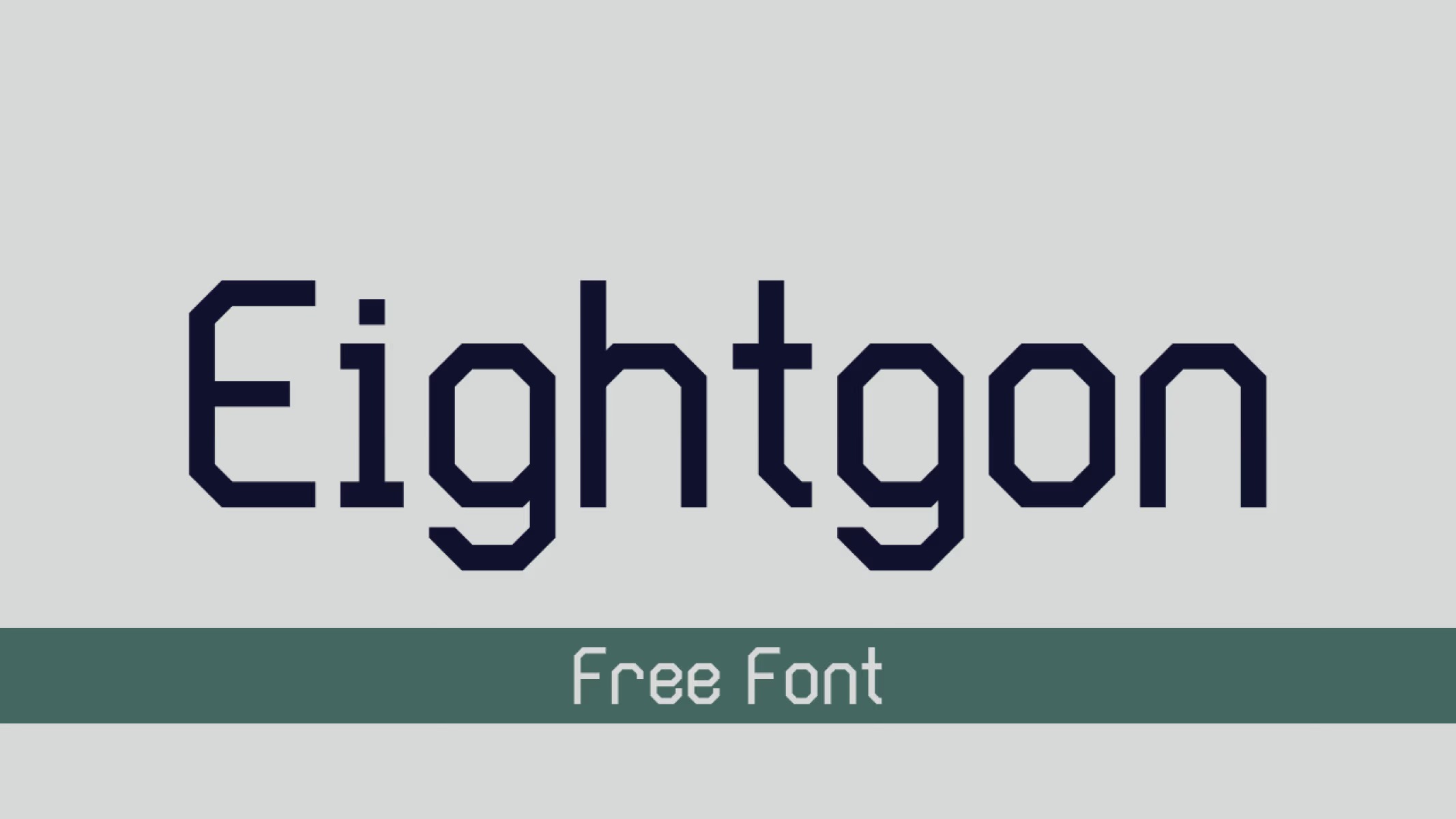
Eightgon Font Free
Eightgon Font is a professionally designed typeface that delivers clarity, structure, and consistent performance across various design applications. Eightgon is a geometric display typeface with a crisp, techno-inspired tone. Its letters are built from straight strokes and clipped octagonal corners, giving curves such as “o,” “g,” and “e” a faceted, mechanical rhythm.
The design uses narrow proportions, even stroke weight, and tight, orderly spacing for a clean digital feel. It works well for posters, gaming graphics, sci-fi titles, tech branding, album covers, and bold social media headlines.